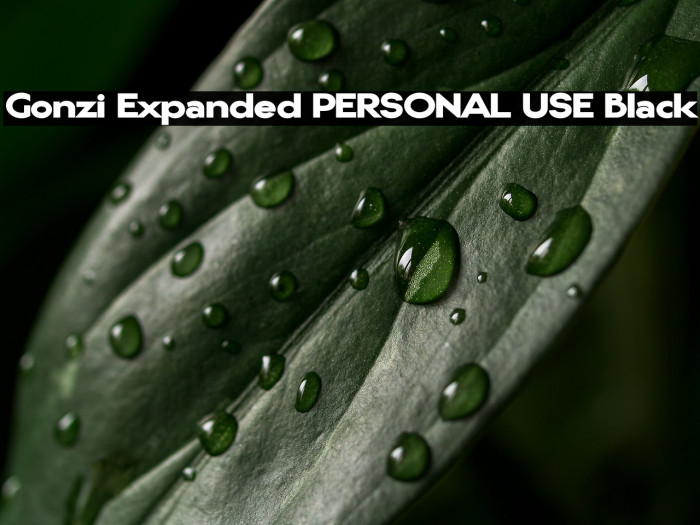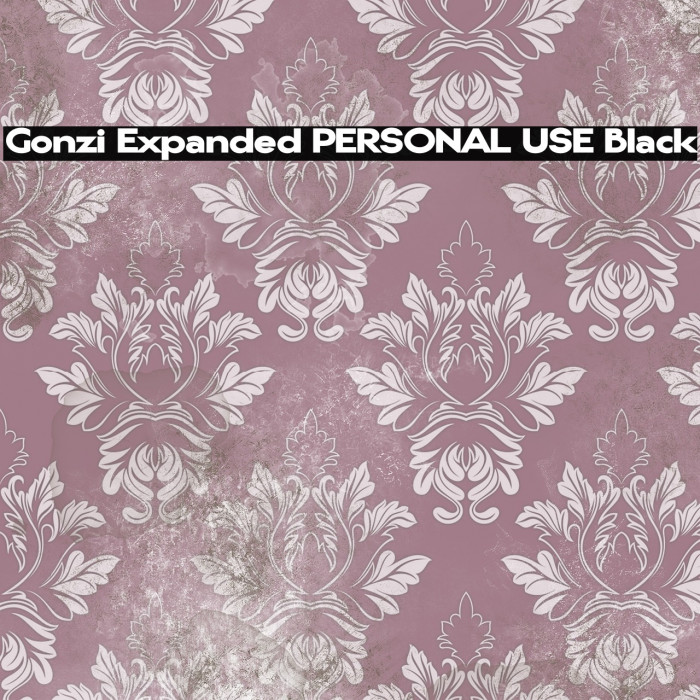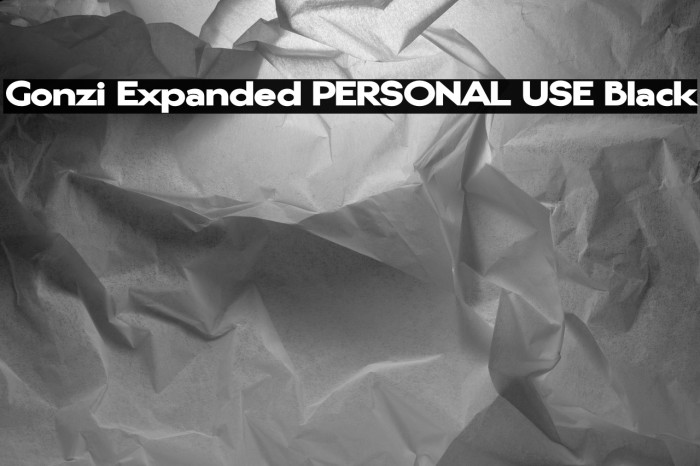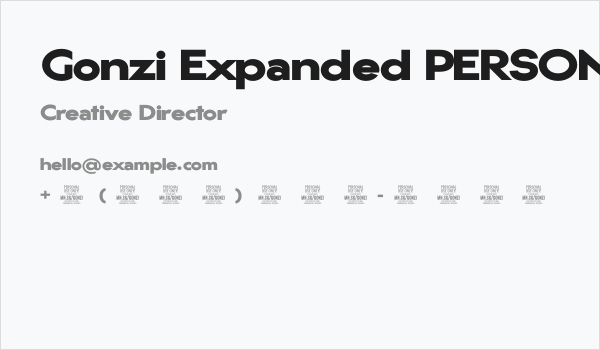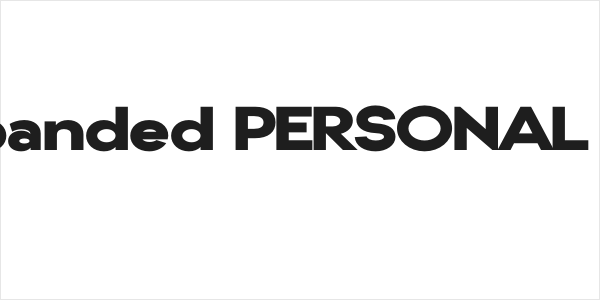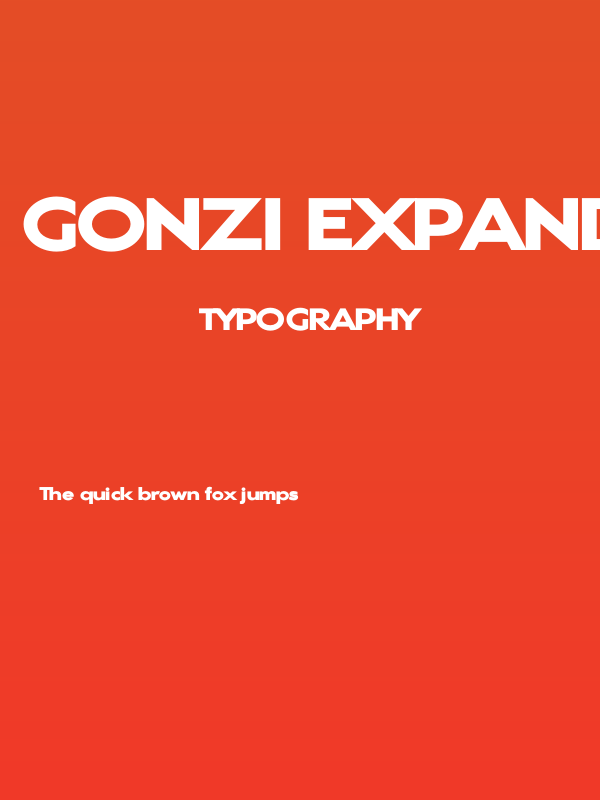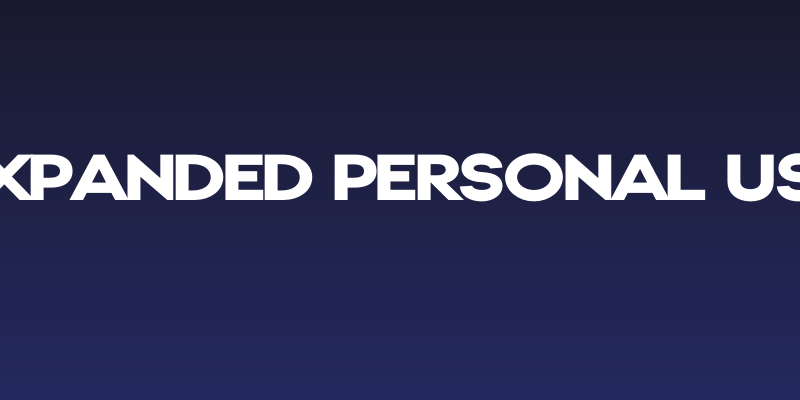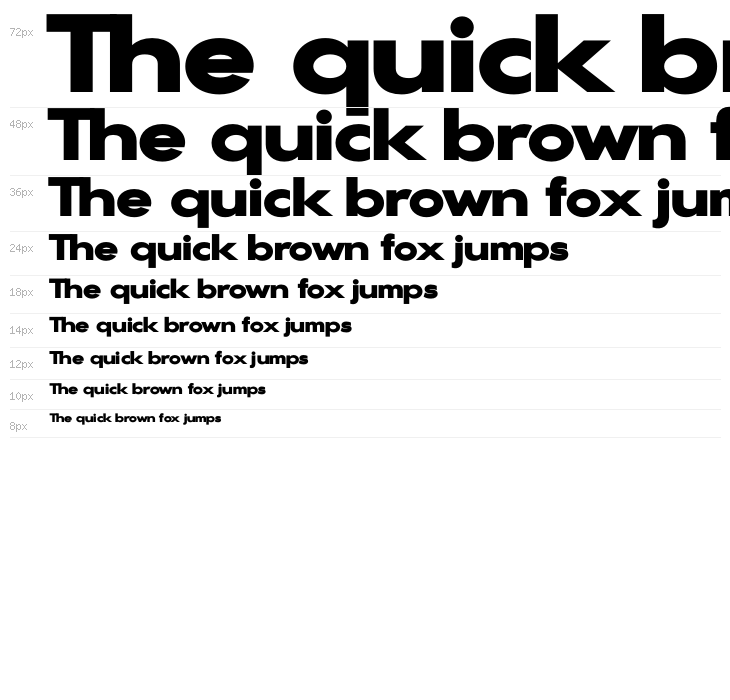
Gonzi Expanded PERSONAL USE Black Font
Gonzi Expanded PERSONAL USE Black Description
This font features bold, geometric letterforms with a strong presence. The characters are expanded, giving them a wide stance that commands attention. The uppercase and lowercase letters maintain a consistent weight, contributing to a cohesive and uniform appearance. The font's design is modern and clean, with sharp angles and straight lines that enhance its contemporary feel. The numerals and special characters are designed to match the boldness of the alphabet, ensuring a harmonious look across all text elements. This font is ideal for making a statement in any design project.